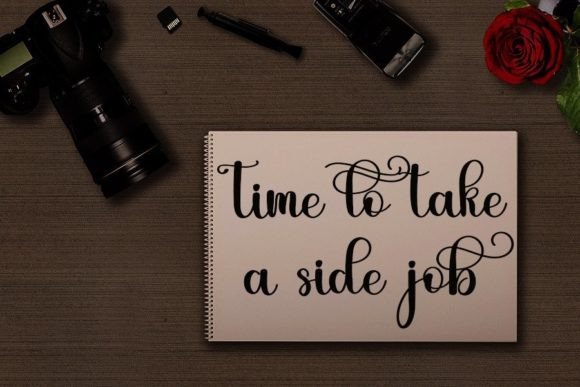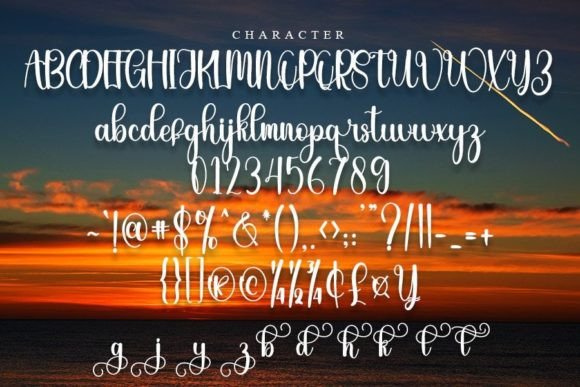
About Weekly Font
Weekly is a refined and graceful handwritten font that embodies delicacy and elegance in its flowing design. With beautifully balanced characters, this font effortlessly complements a diverse range of designs, making it a versatile choice for creative projects. Integrate Weekly into your most imaginative ideas, and witness how it breathes life into them with its captivating charm.
The font’s delicate strokes and well-crafted characters contribute to its overall aesthetic appeal. Whether you’re working on invitations, branding, or any design project, Weekly adds a touch of sophistication and style. Its flowing nature imparts a sense of fluidity and harmony, enhancing the visual impact of your creations.
What sets Weekly apart is its versatility – it seamlessly adapts to various design contexts, making it suitable for a wide array of applications. Whether used in print or digital media, this font stands out with its timeless elegance. Incorporate Weekly into your designs to elevate them with a subtle yet impactful touch.
Moreover, Weekly is PUA encoded, providing easy access to a plethora of amazing glyphs and ligatures. This feature allows you to explore and utilize the full range of design elements that the font offers, enhancing your creative freedom. The inclusion of PUA encoding makes Weekly not just a font but a tool for expressing your unique design vision.
In conclusion, Weekly is more than just a typeface; it’s a refined addition to your creative toolkit. Its delicacy, elegance, and flowing design make it a standout choice for designers looking to infuse their projects with timeless charm. Unlock the full potential of your creativity with Weekly and watch as your ideas come alive with a newfound sense of sophistication.